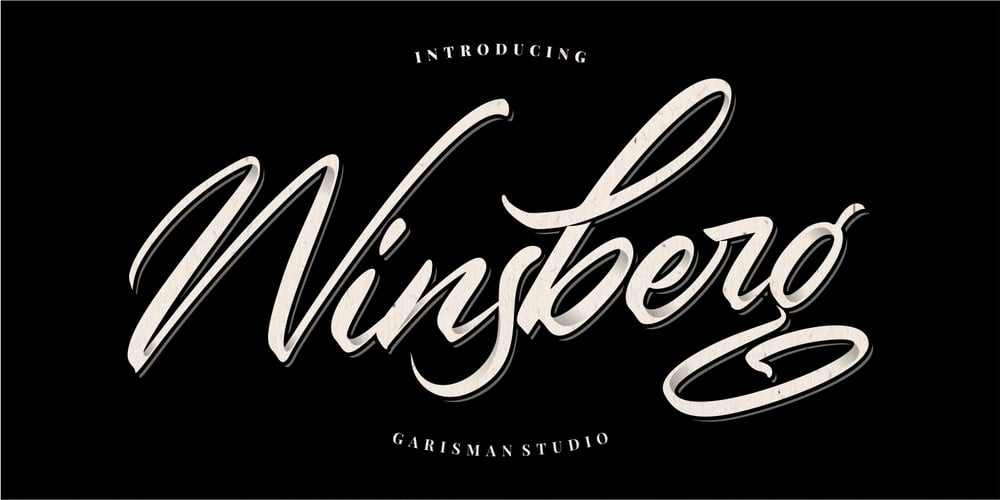
Winsberg Font Family was designed by Risman Ginarwan and published by Garisman Studio. Winsberg contains 1 styles and family package options. Winsberg comes from hand scratches to get a natural and natural writing. Winsberg is very suitable for use in various media such as packaging, logo, label, poster, shirt design, quote of wisdom, hand lettering, typography and many other media.